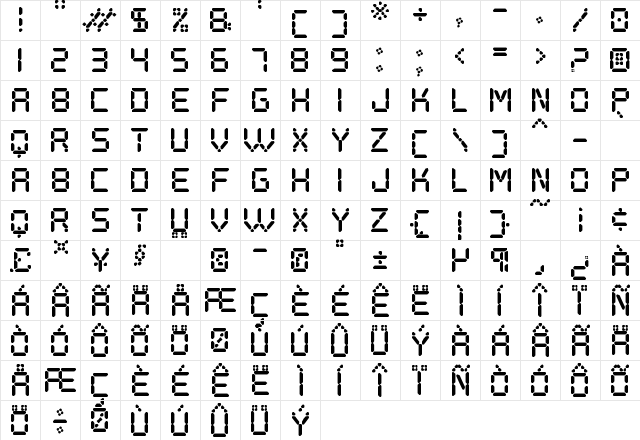
Digital Play St Regular
Design Context for Digital Play St Typeface
Digital Play St channels digital-age aesthetics through its sharp, structured letterforms — ideal for brands that want to signal innovation.
Pro Tip: Use Digital Play St in combination with a neutral sans for body text. Let it define the brand voice in headlines while keeping reading comfortable elsewhere.